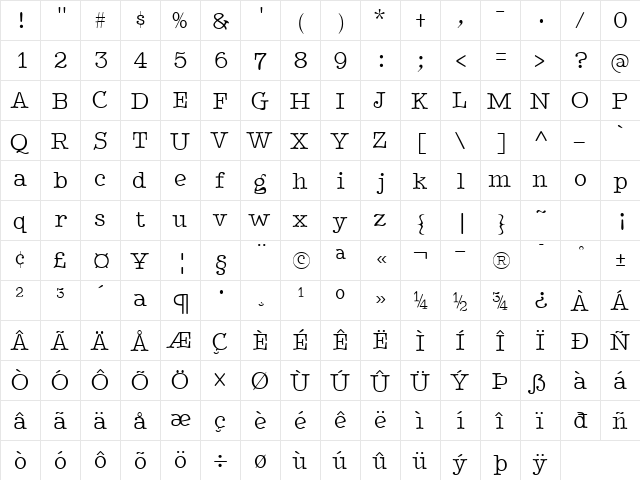
BetterTypeRight Plain
Design Context for BetterTypeRight Typeface
BetterTypeRight offers clean, dependable letterforms without strong stylistic allegiance, making it a practical choice for designers who need flexibility.
Pro Tip: Use BetterTypeRight in both headline and body roles to test its range before committing to a single application.